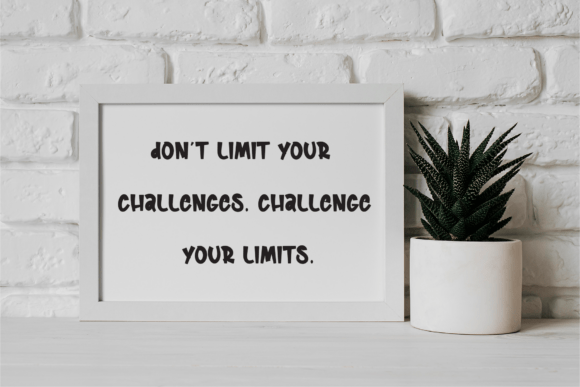
Introducing Chessecake Font: The Perfect Blend of Freshness and Friendliness
In the world of typography, fonts play a crucial role in conveying the tone and personality of a brand or design. When it comes to creating visually appealing and effective designs, selecting the right font is essential. This is where Chessecake Font comes into play – a casual and neat display font that radiates a fresh, friendly vibe. With its clean lines and relaxed structure, Chessecake is perfect for a wide range of design applications, including packaging, posters, and social media graphics.
The Charm of Chessecake Font
Chessecake Font is designed to add a touch of charm and clarity to any project while maintaining a polished appearance. Its approachable design makes it an excellent choice for brands looking to connect with their audience on a more personal level. The font’s clean lines and relaxed structure give it a unique and refreshing look that sets it apart from other display fonts.
One of the standout features of Chessecake Font is its versatility. Whether you’re working on a packaging design, poster, or social media graphic, this font is sure to make your project stand out. Its friendly and approachable vibe makes it perfect for brands looking to convey a sense of warmth and approachability.
Key Features of Chessecake Font
- Clean Lines: Chessecake Font features clean lines that give it a crisp and modern look.
- Relaxed Structure: The font’s relaxed structure adds a touch of friendliness and approachability to any design.
- Fresh and Friendly Vibe: Chessecake Font radiates a fresh and friendly vibe that’s perfect for brands looking to connect with their audience.
- Versatile: This font is perfect for a wide range of design applications, including packaging, posters, and social media graphics.
- Polished Appearance: Despite its casual and relaxed structure, Chessecake Font maintains a polished appearance that’s perfect for professional designs.
Uses of Chessecake Font
Chessecake Font is a versatile display font that can be used in a wide range of design applications. Here are some of the most popular uses of this font:
- Packaging Design: Chessecake Font is perfect for packaging design, adding a touch of freshness and friendliness to any product.
- Posters: This font is ideal for posters, making your message stand out with its clean lines and relaxed structure.
- Social Media Graphics: Chessecake Font is perfect for social media graphics, adding a touch of charm and clarity to your posts and stories.
- Branding: This font can be used to create a unique and recognizable brand identity that resonates with your target audience.
Benefits of Using Chessecake Font
There are several benefits to using Chessecake Font in your designs. Here are some of the most significant advantages:
- Unique Look: Chessecake Font has a unique and refreshing look that sets it apart from other display fonts.
- Versatility: This font is perfect for a wide range of design applications, making it a great addition to any designer’s toolkit.
- Easy to Read: Chessecake Font is clean and easy to read, making it perfect for designs where clarity is essential.
- Customizable: This font can be easily customized to fit your brand’s unique needs and style.
Tips for Using Chessecake Font
Here are some tips for using Chessecake Font in your designs:
- Use it for Headings: Chessecake Font is perfect for headings and titles, adding a touch of freshness and friendliness to your design.
- Pair it with Other Fonts: This font can be paired with other fonts to create a unique and recognizable brand identity.
- Experiment with Colors: Chessecake Font looks great in a variety of colors, so don’t be afraid to experiment and find the perfect hue for your design.
- Keep it Simple: This font is perfect for simple and clean designs, so keep your design elements minimal to let the font shine.
In conclusion, Chessecake Font is a casual and neat display font that radiates a fresh, friendly vibe. With its clean lines and relaxed structure, it’s perfect for a wide range of design applications, including packaging, posters, and social media graphics. Its approachable design adds charm and clarity to projects while maintaining a polished appearance. Whether you’re a designer or a brand looking to create a unique identity, Chessecake Font is an excellent choice.